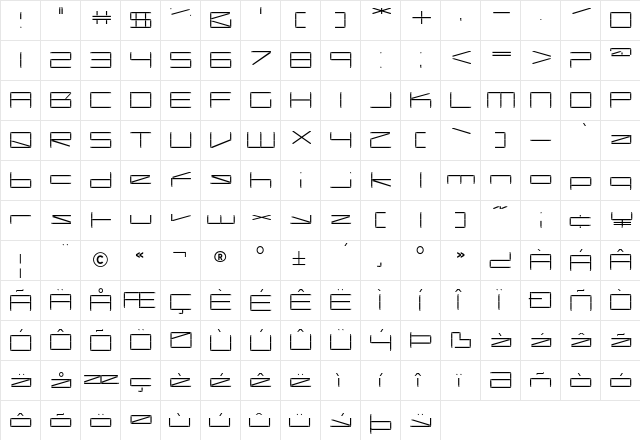
Capacitor Regular Font Preview
Capacitor Regular
Capacitor Regular Font Details
Design Context for Capacitor Typeface
Capacitor offers clean, dependable letterforms without strong stylistic allegiance, making it a practical choice for designers who need flexibility.